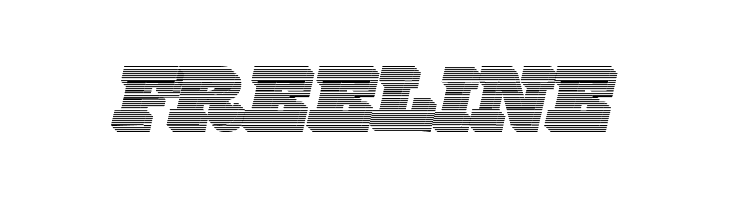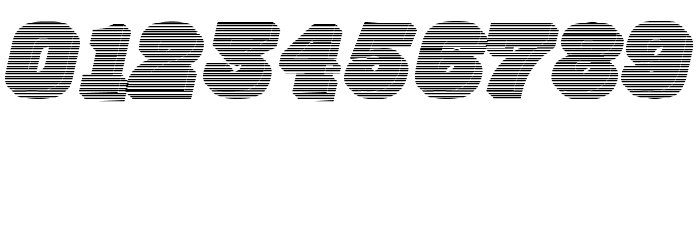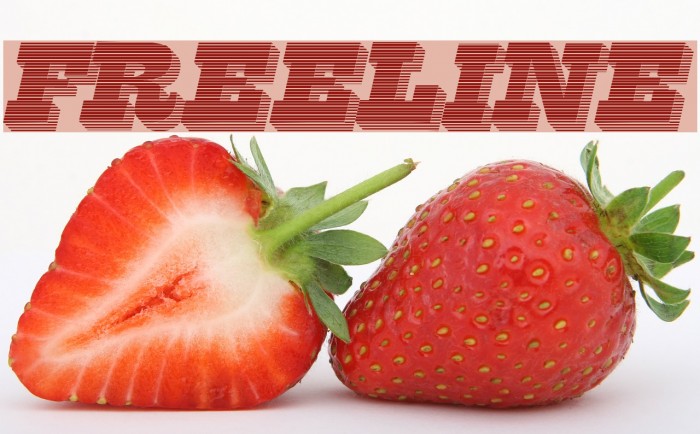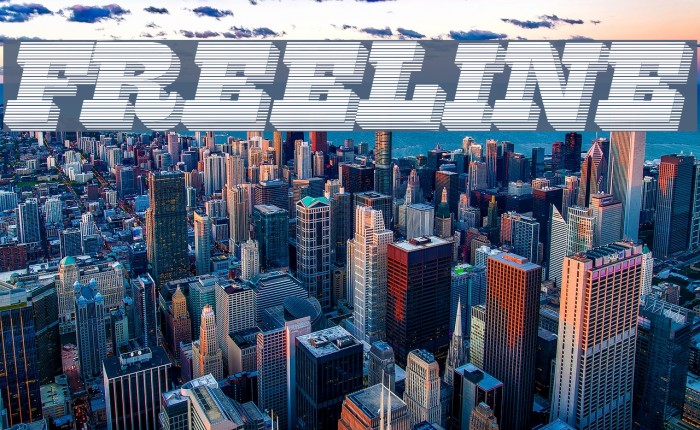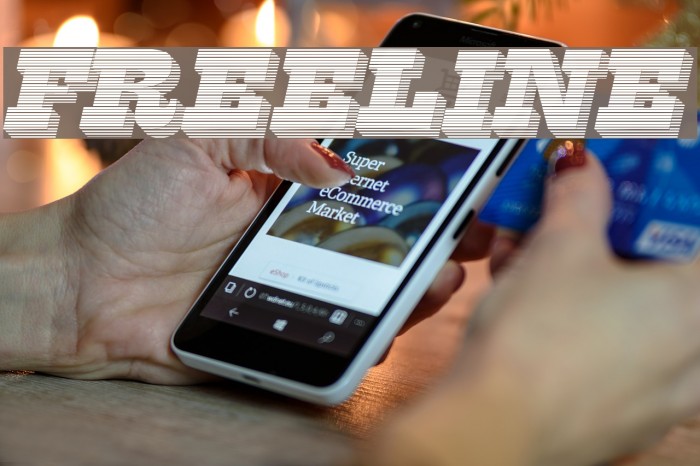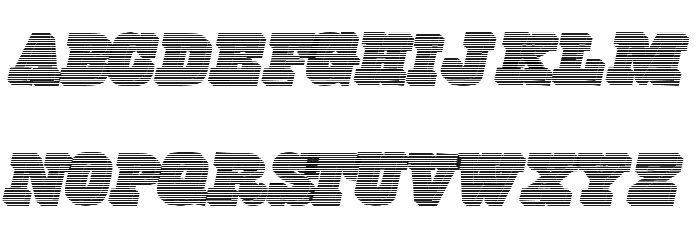
FreeLine Font
FreeLine Description
This font features a unique design characterized by horizontal lines that create a striped effect across each character. The bold and dynamic appearance is achieved through the use of thick strokes, giving it a strong presence. The letters are uppercase and have a slightly condensed form, which enhances the compact look. The font's distinct style makes it stand out, with a modern and edgy vibe that can capture attention. The numbers follow the same design principle, maintaining consistency throughout the typeface. This font is particularly suitable for projects that require a bold statement or a contemporary touch.
A bold, striped font with a modern and dynamic appearance from Uncategorized fonts.
- Proposed Projects: Ideal for headlines, posters, branding, and any design needing a striking visual impact.